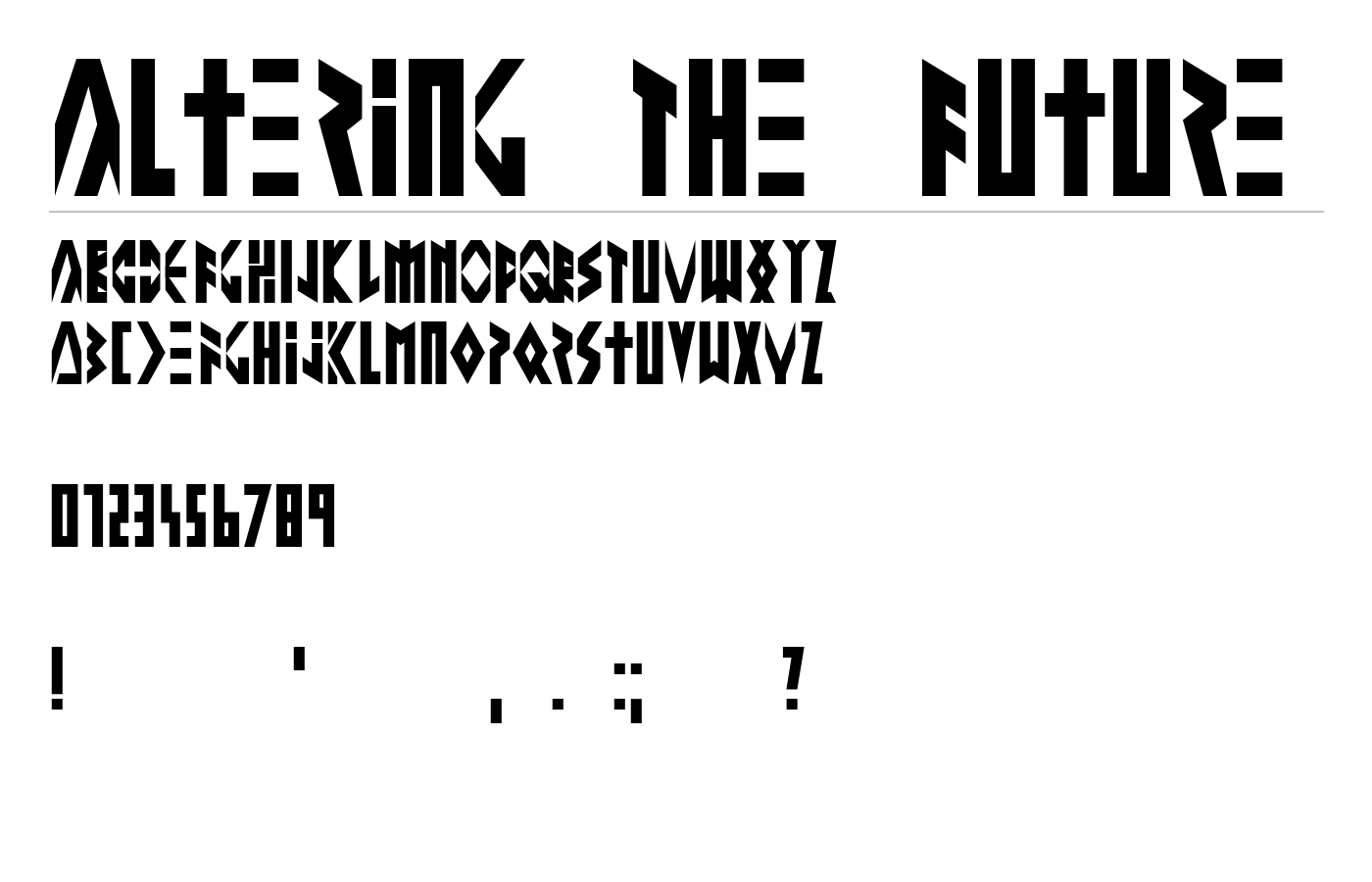
Altering The Future is a bold, geometric sans serif font with a futuristic and edgy appearance. Its sharp angles, high contrast between thick and thin strokes, and condensed letterforms give it a strong, dynamic personality perfect for modern, tech-inspired branding, posters, or headlines that demand attention. This typeface works best in display contexts where its distinctive style can shine and evoke innovation and forward-thinking vibes.
Altering The Future Font
About Altering The Future Font
| Font family | Altering The Future Font |
| Designer | Roland Hüse |